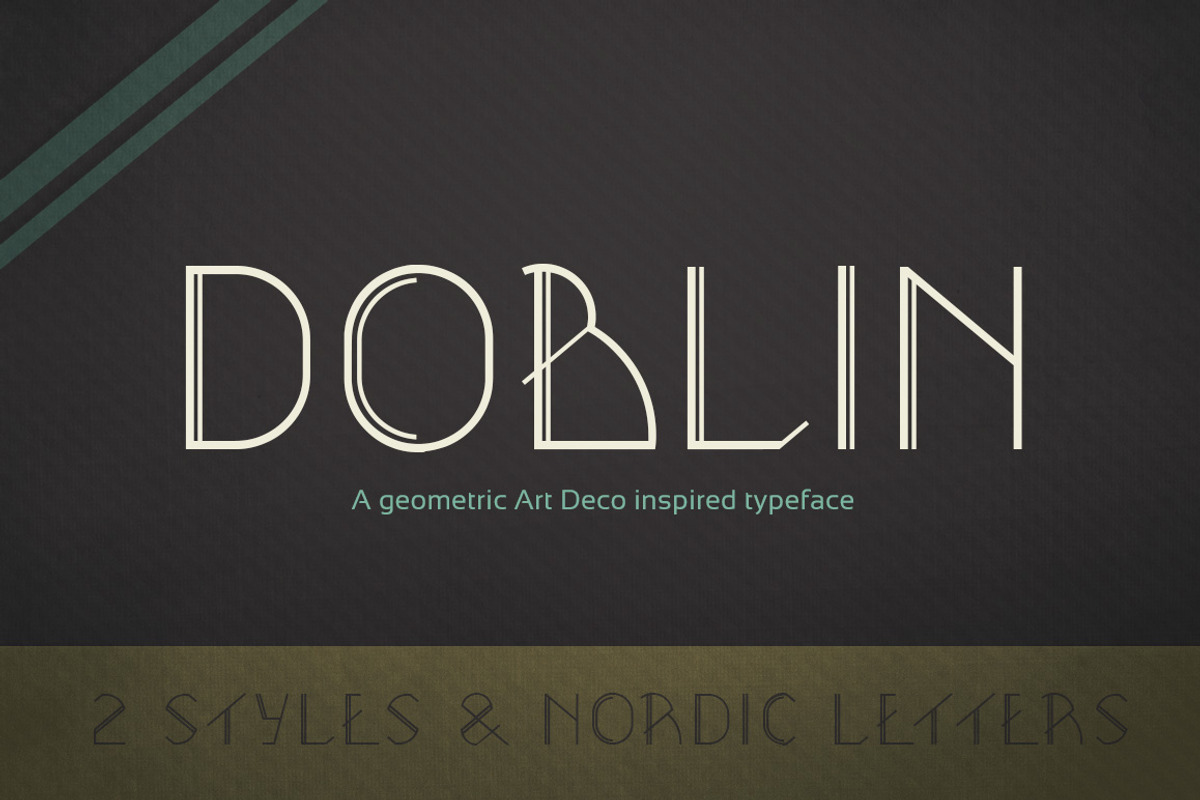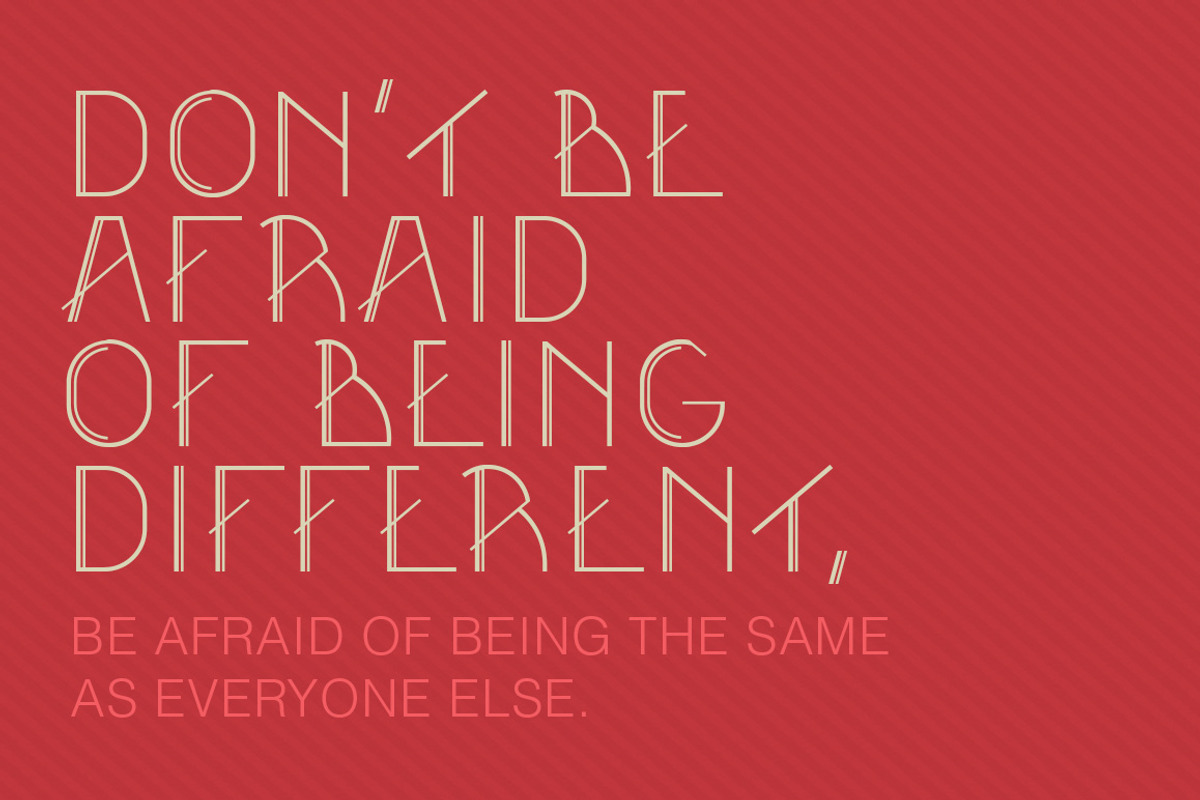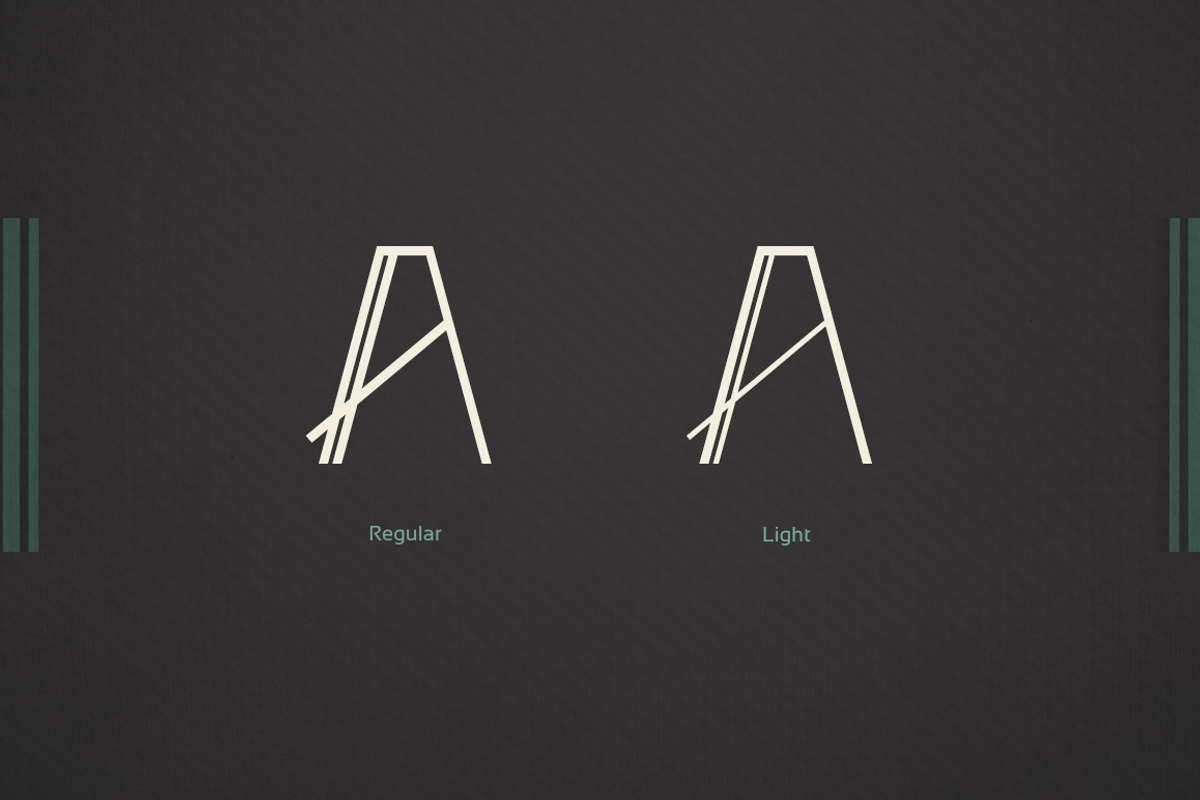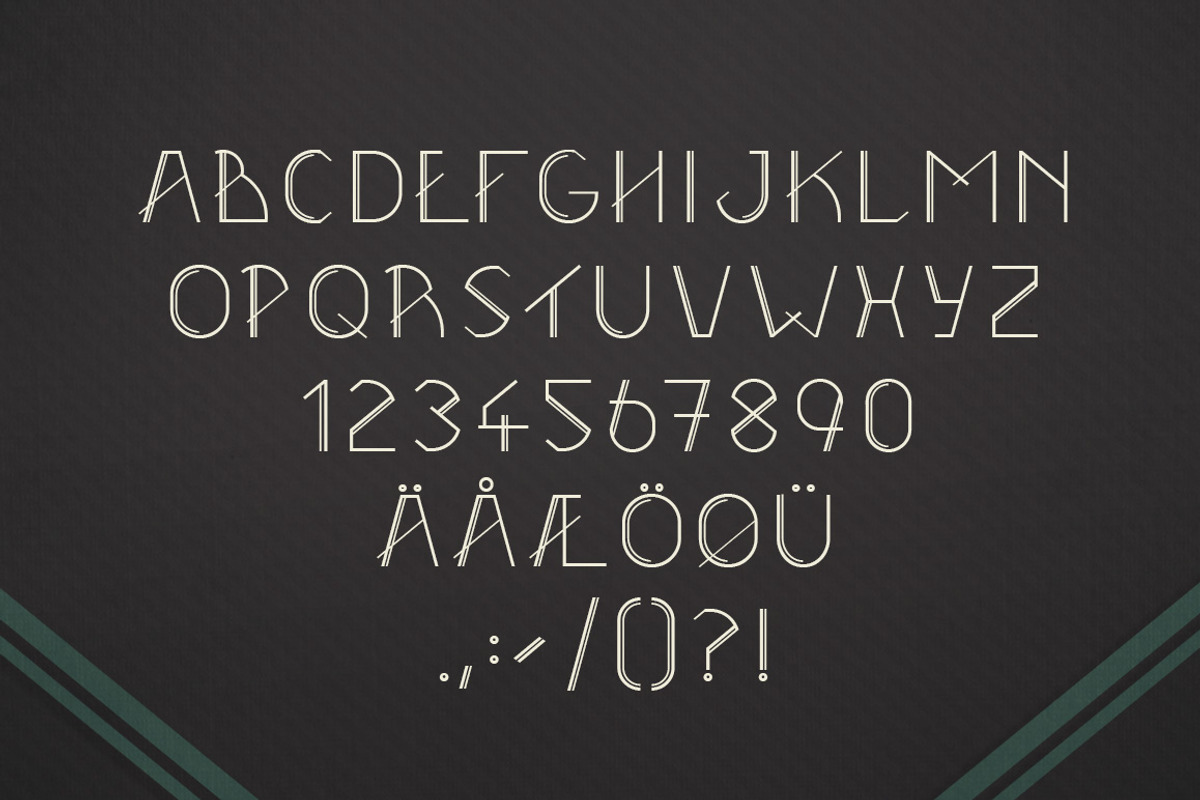
Doblin Typeface (2 Styles)
Doblin Typeface (2 Styles) by nordicworker is a font selected for branding, posters, packaging, typography.
- It comes in two styles with numbers, punctuation and Nordic characters included.
- Doblin Light
- Doblin Regular
Why Doblin Typeface (2 Styles) is worth a look
Doblin Typeface (2 Styles) by nordicworker fits naturally into Branding, posters, packaging, typography.